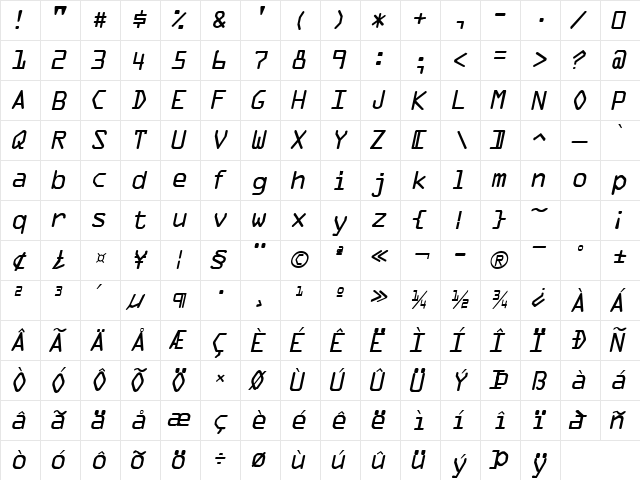
Optical C Italic
Design Context for Optical C Typeface
Optical C is a composed and adaptable typeface that performs quietly and consistently across a wide range of design contexts. The dynamic lean of this cut emphasises speed and emphasis in any layout.